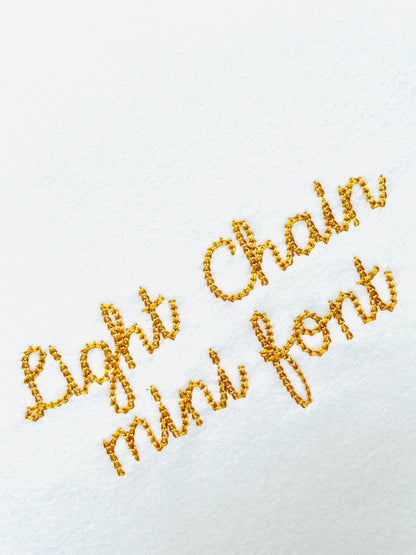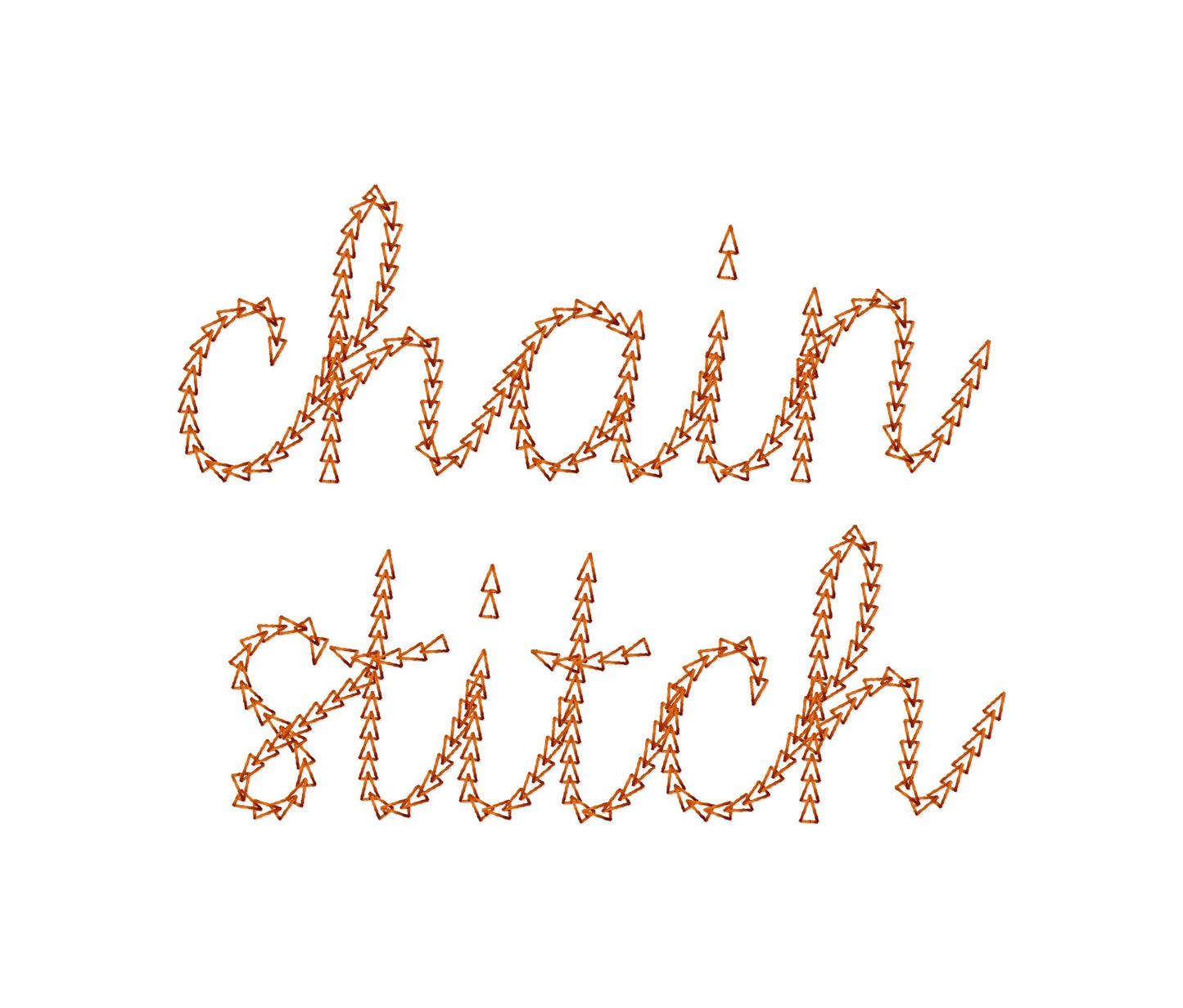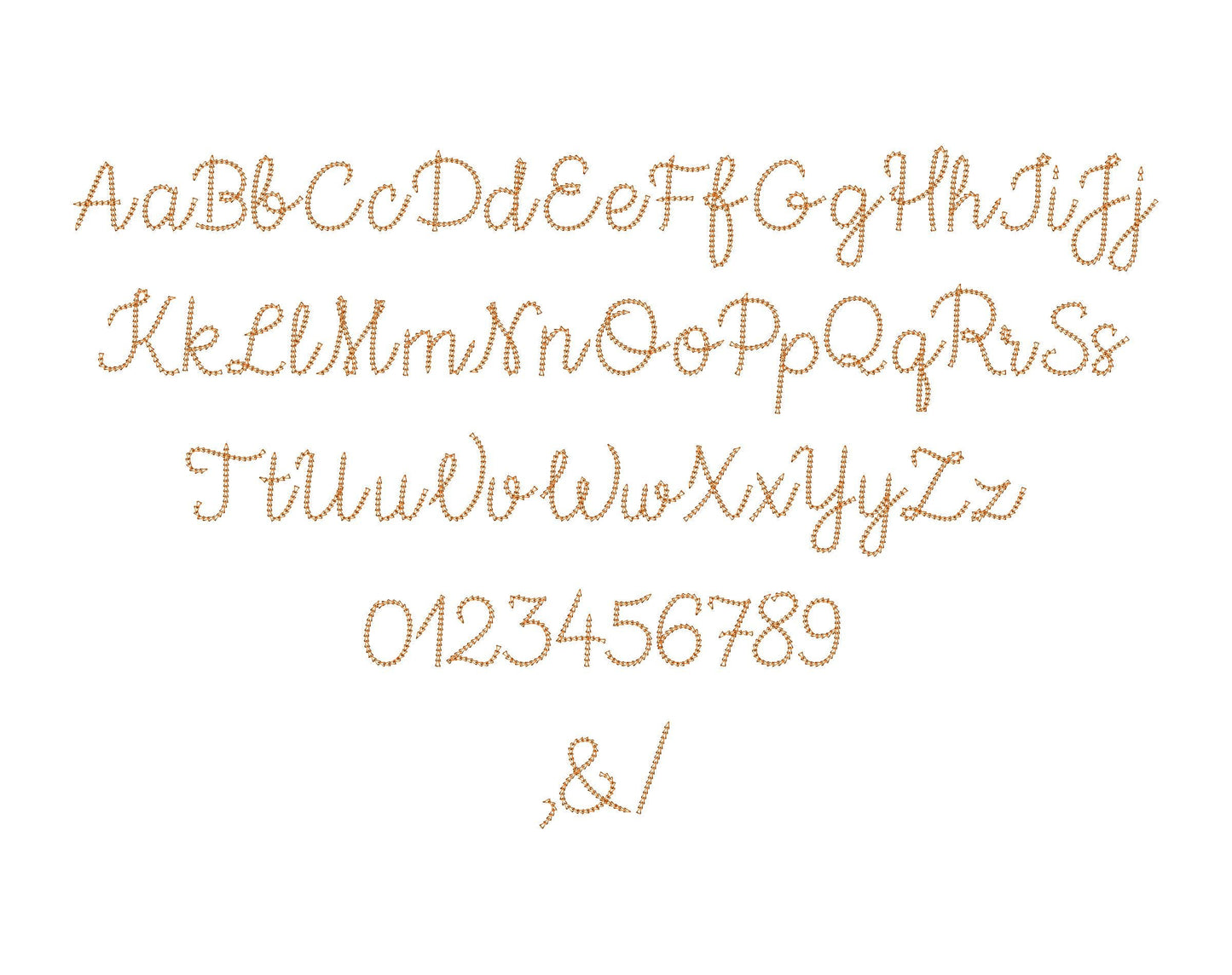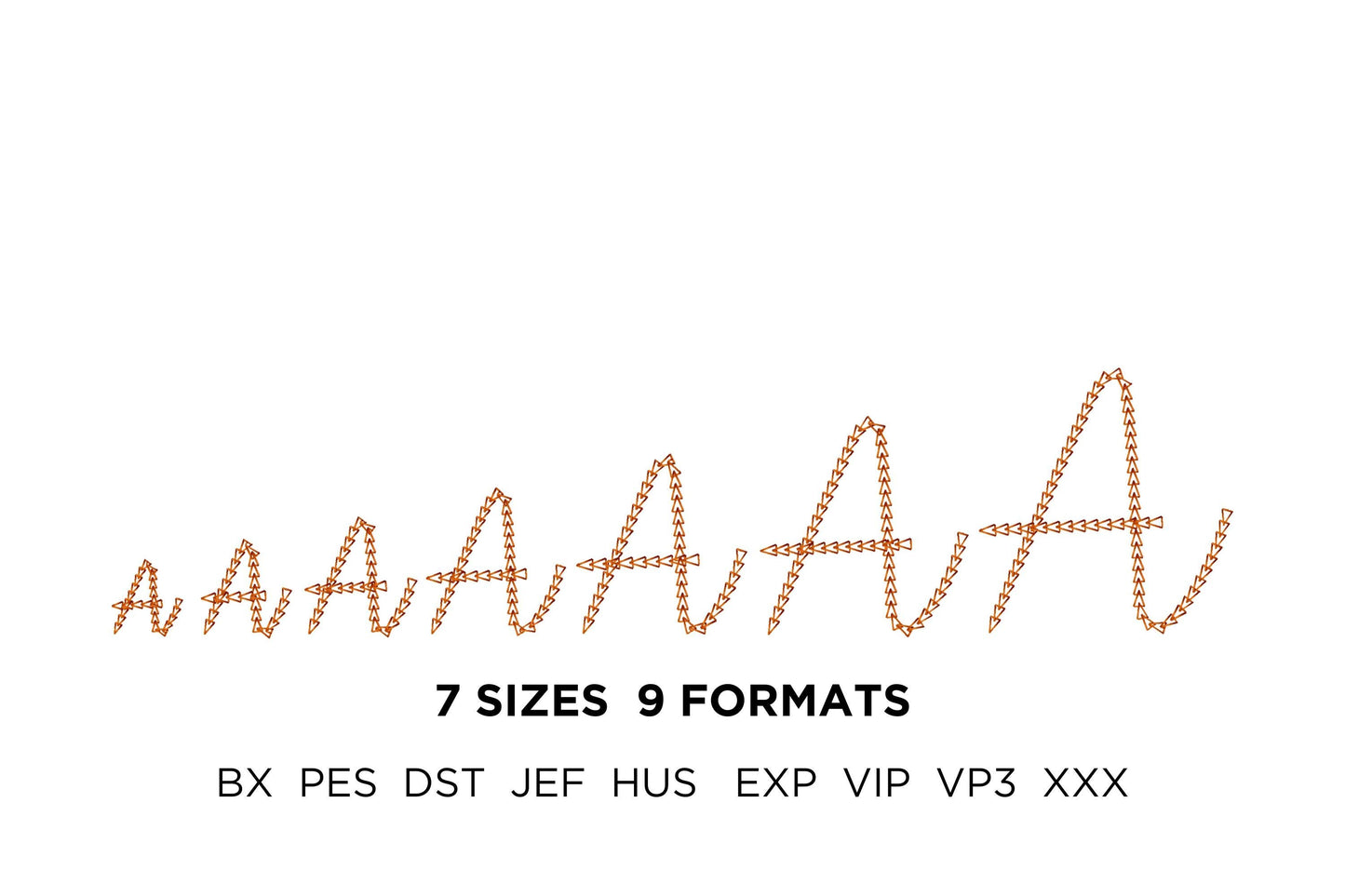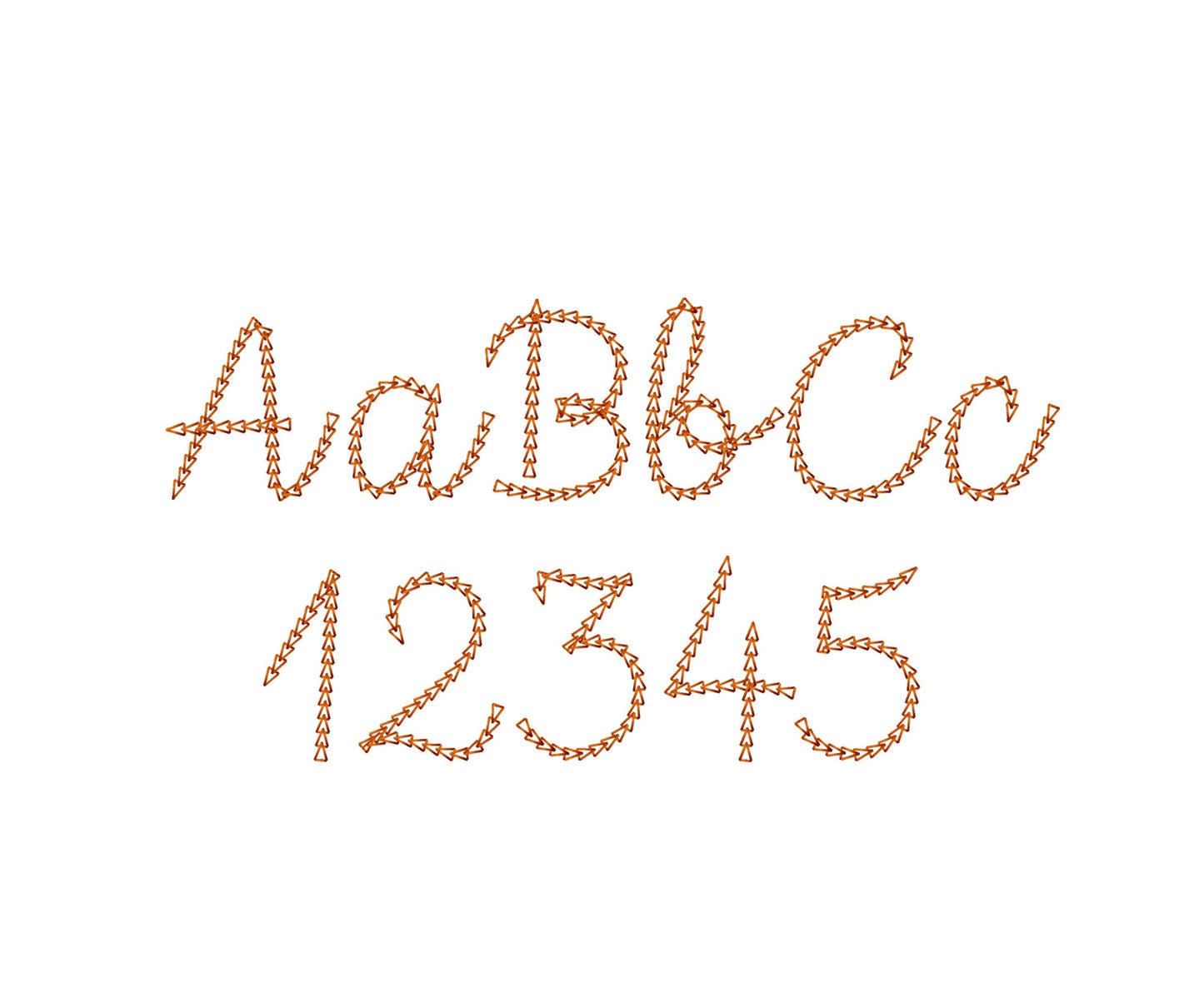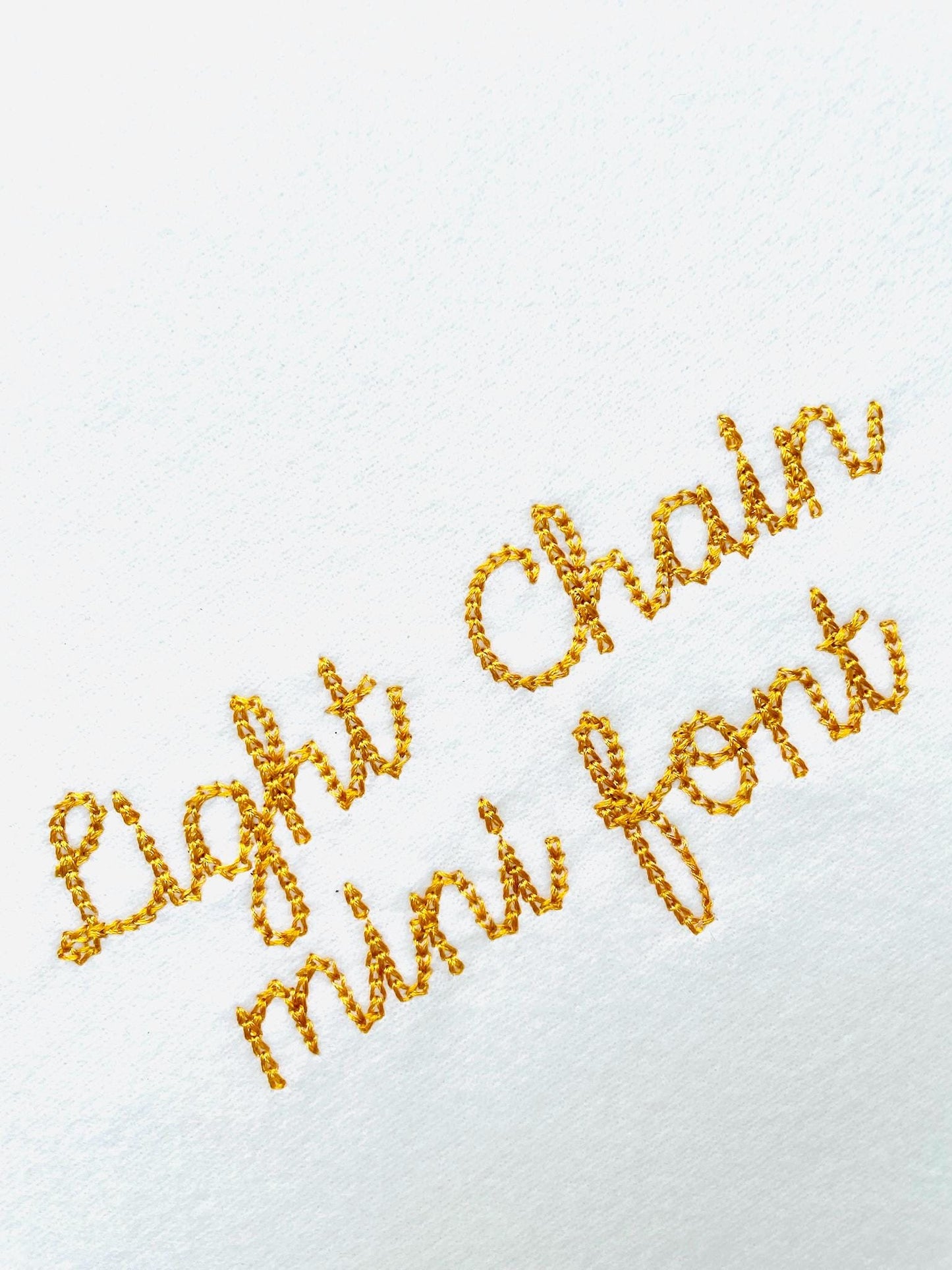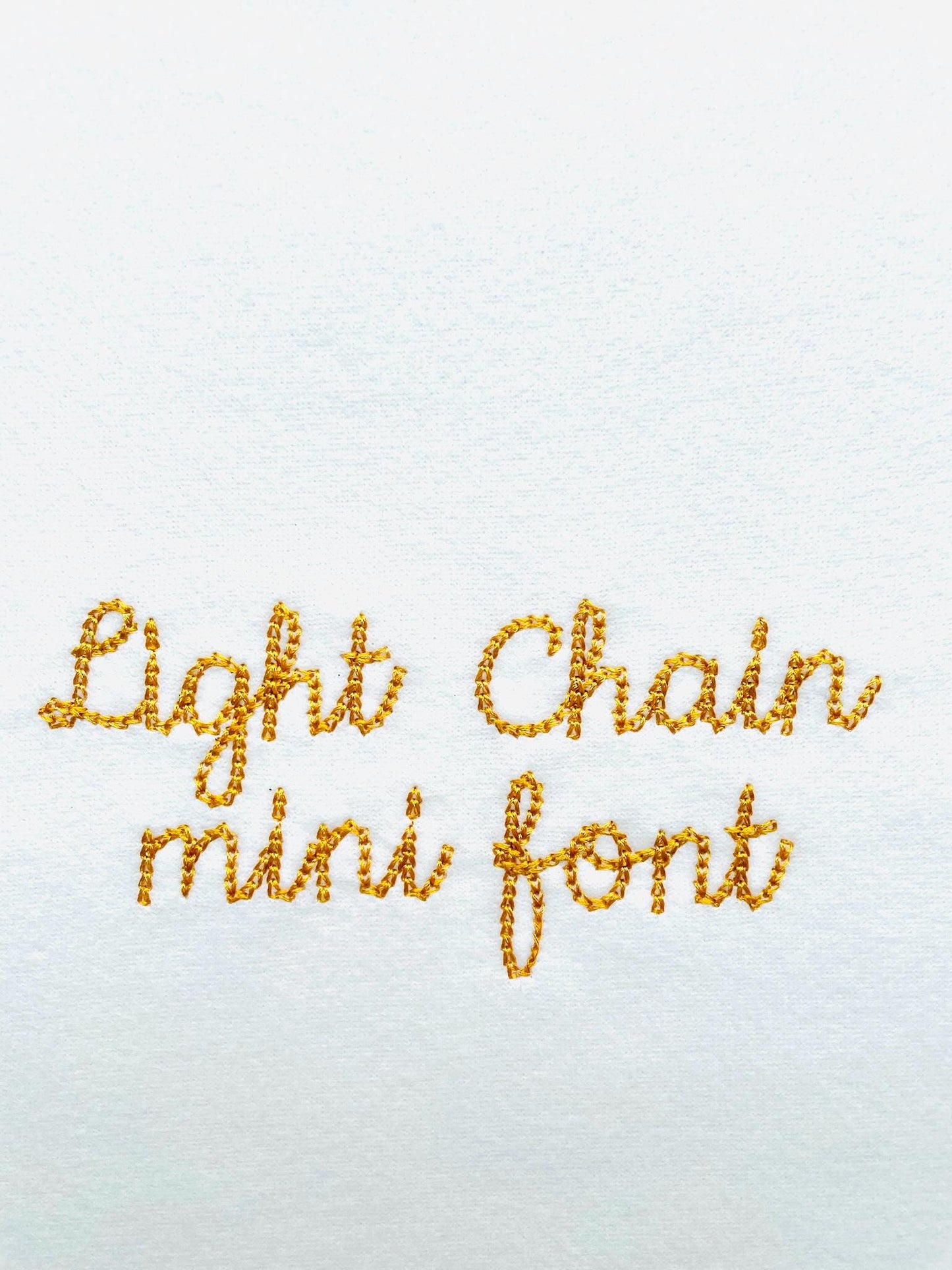
Or click to open the linkA handwritten script in quick light chain stitch. Easy for kids' names, monograms, sayings and gifts.
Uppercase and lowercase letters, numbers 0 to 9, an ampersand, comma and slash, in seven sizes: 1, 1.2, 1.5, 1.8, 2.2, 2.7 and 3.2 inches.